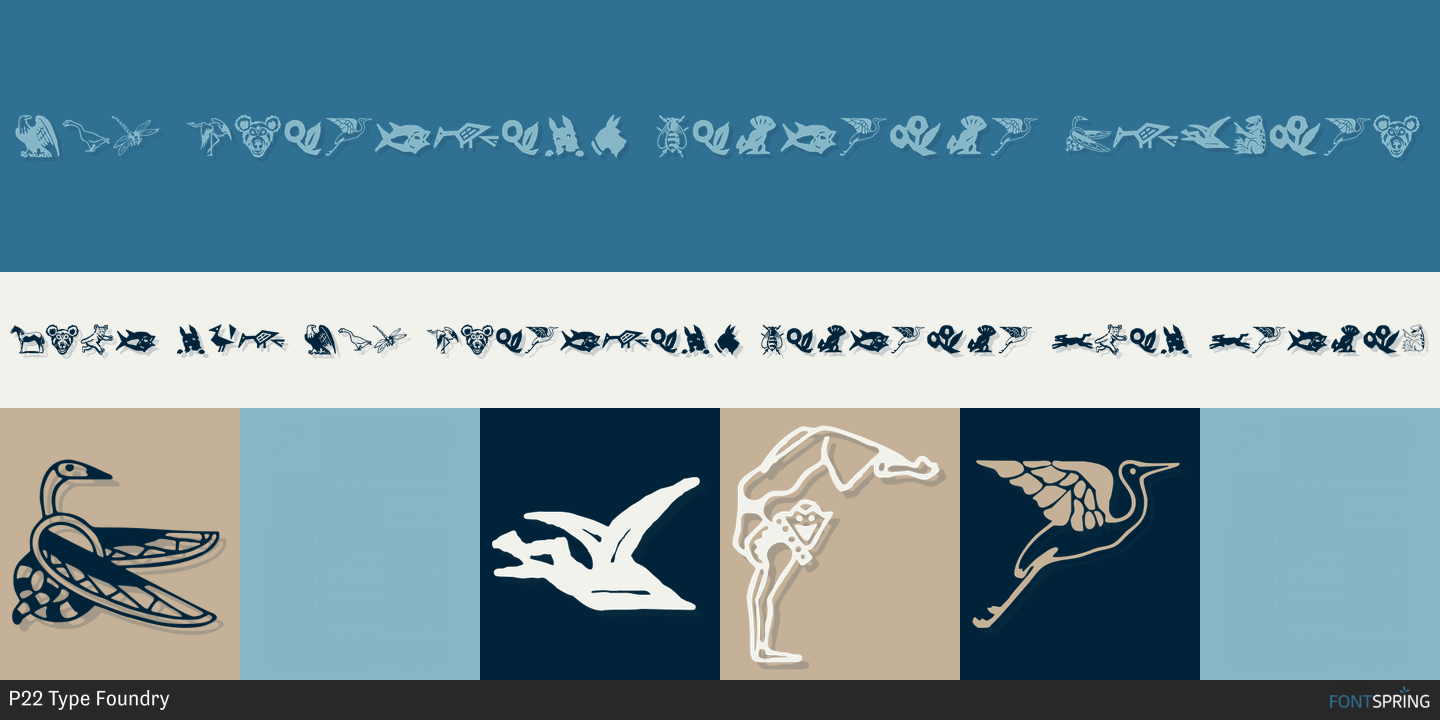
LTC Ornaments Animalia
LTC Ornaments Animalia is a dingbat font published by P22 Type Foundry.
Lanston Monotype made individual ornaments that could be ordered as needed. They were not generally sold in “fonts” as assorted characters but often individually or in multiplesof the same ornament to make borders. This collection of 62 ornaments features an assortment of animal figures that rangefrom graceful stylized art deco birds to Grateful Dead-like laughing bears. Something for everyone indeed!